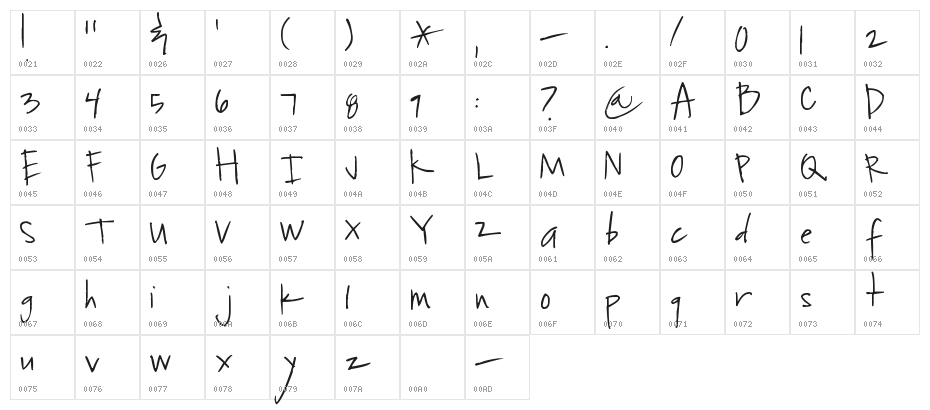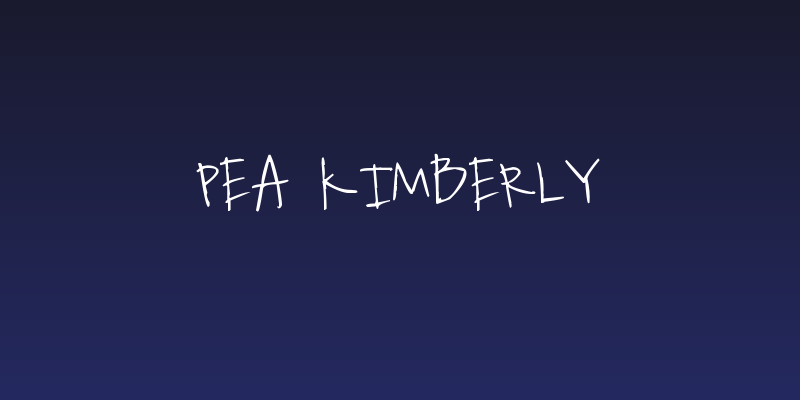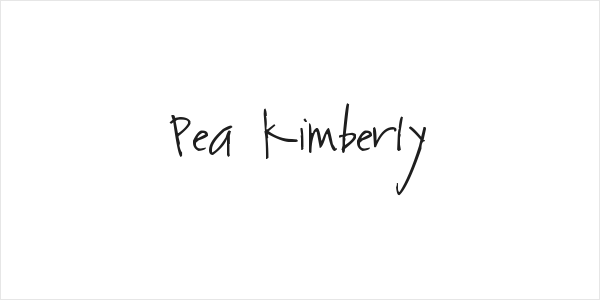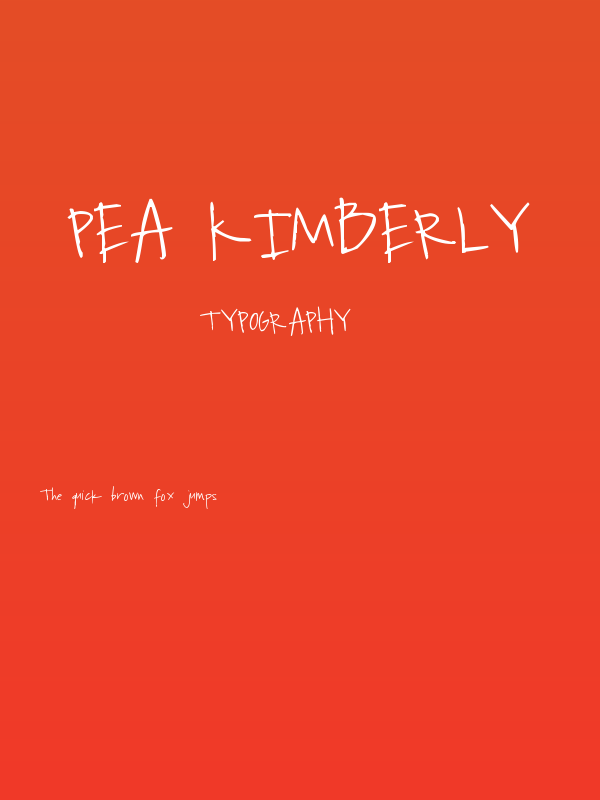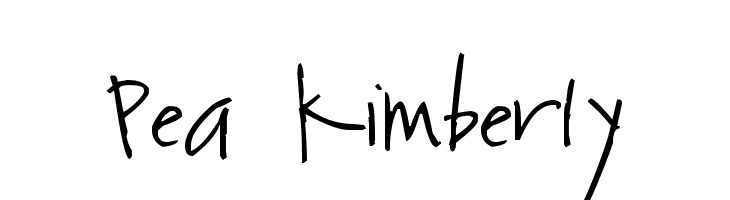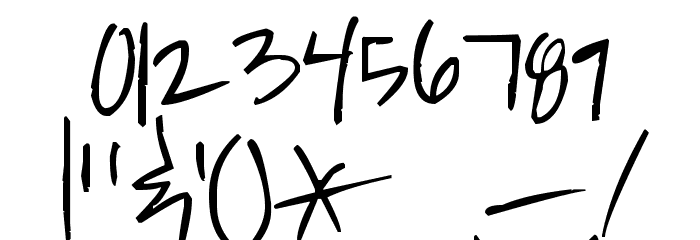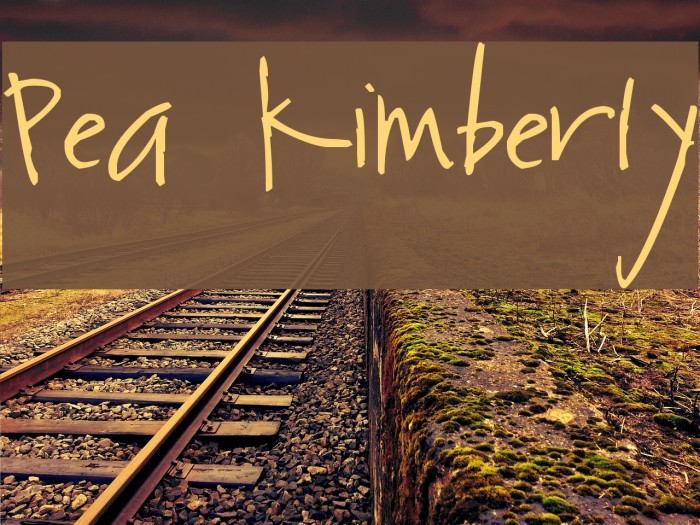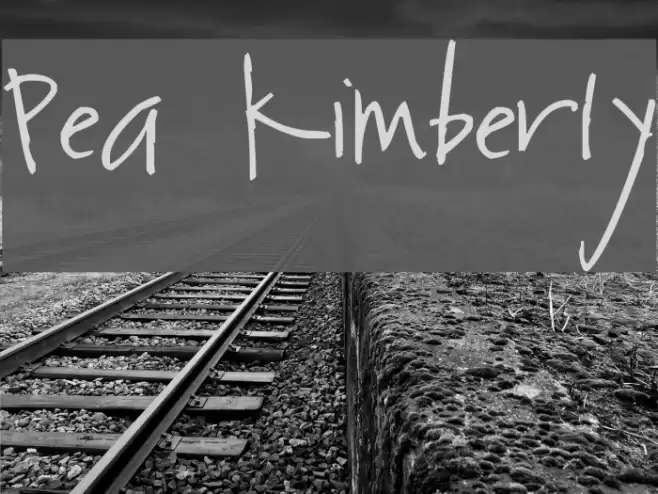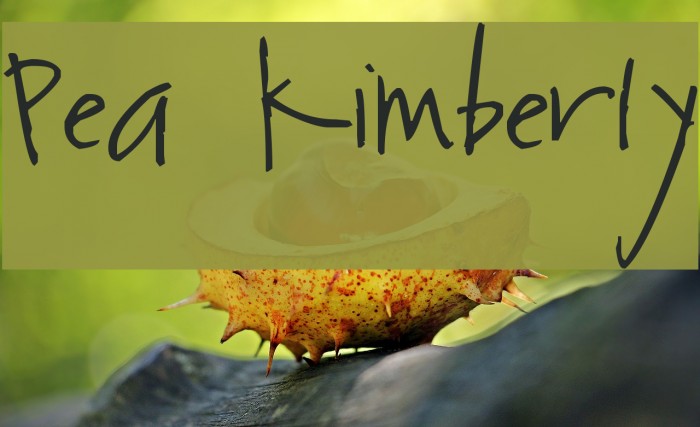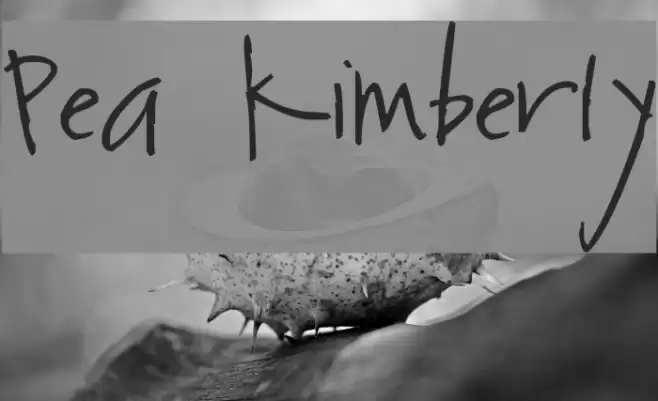
Pea Kimberly Font
This font exudes a casual, handwritten style with a playful and informal appearance. The characters are slightly irregular, mimicking the natural flow of handwriting. The strokes are uneven, adding to the authentic handwritten feel. The uppercase letters are bold and prominent, while the lowercase letters maintain a consistent flow. Numbers and special characters follow the same informal style, making the font versatile for creative projects. The overall look is approachable and friendly, ideal for projects that require a personal touch.
| Proposed Projects | Ideal for personal notes, greeting cards, informal invitations, and creative projects that require a personal touch. |